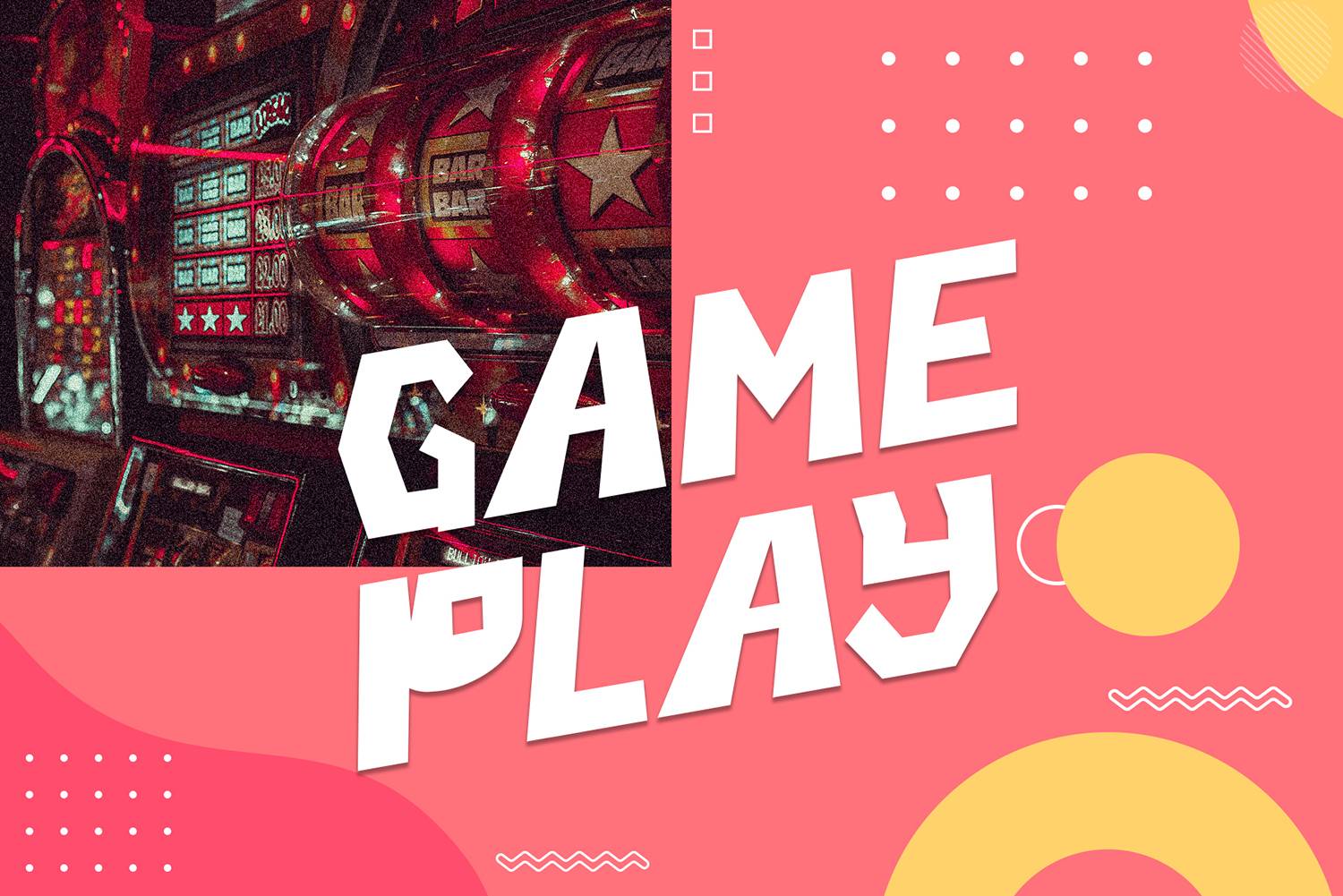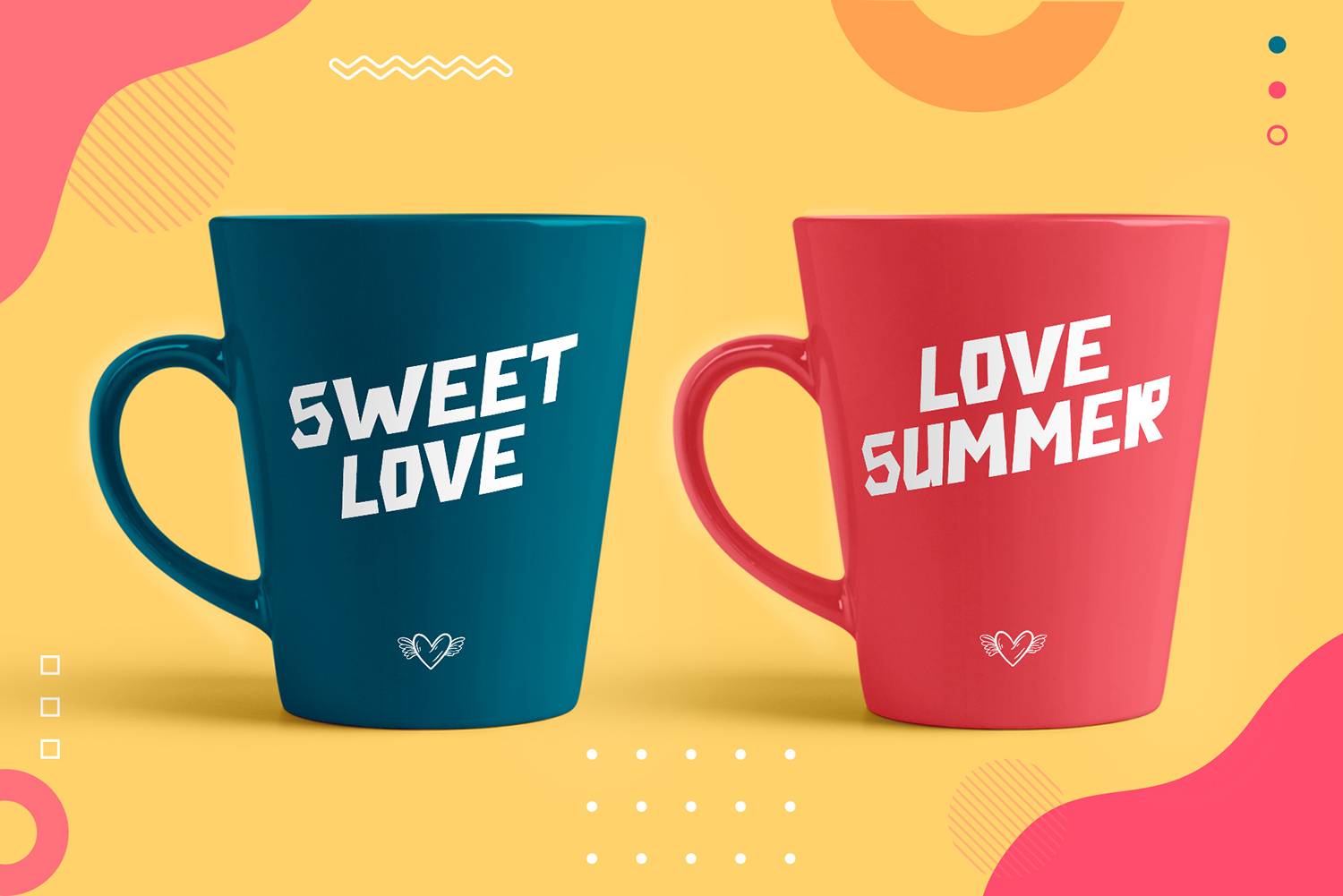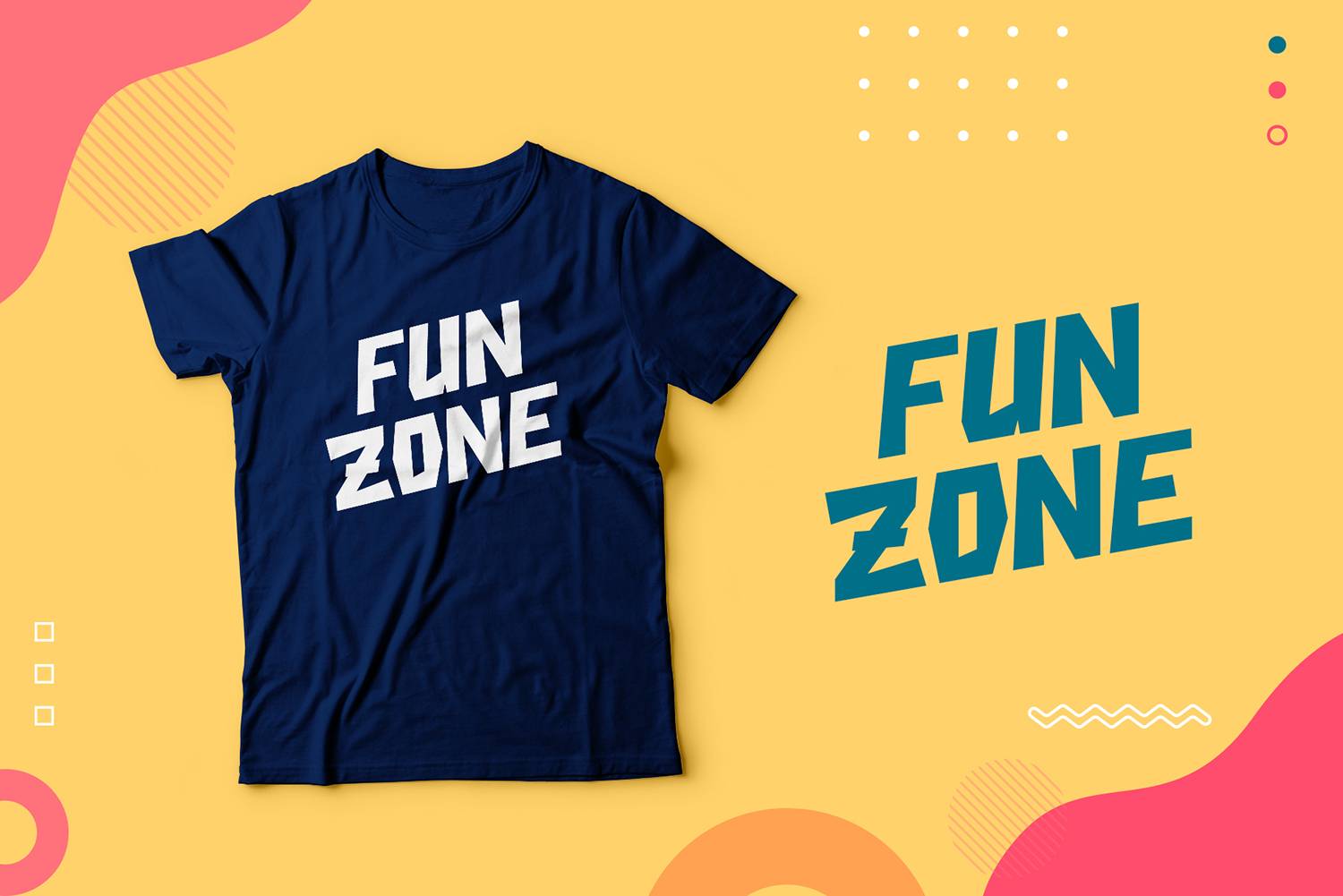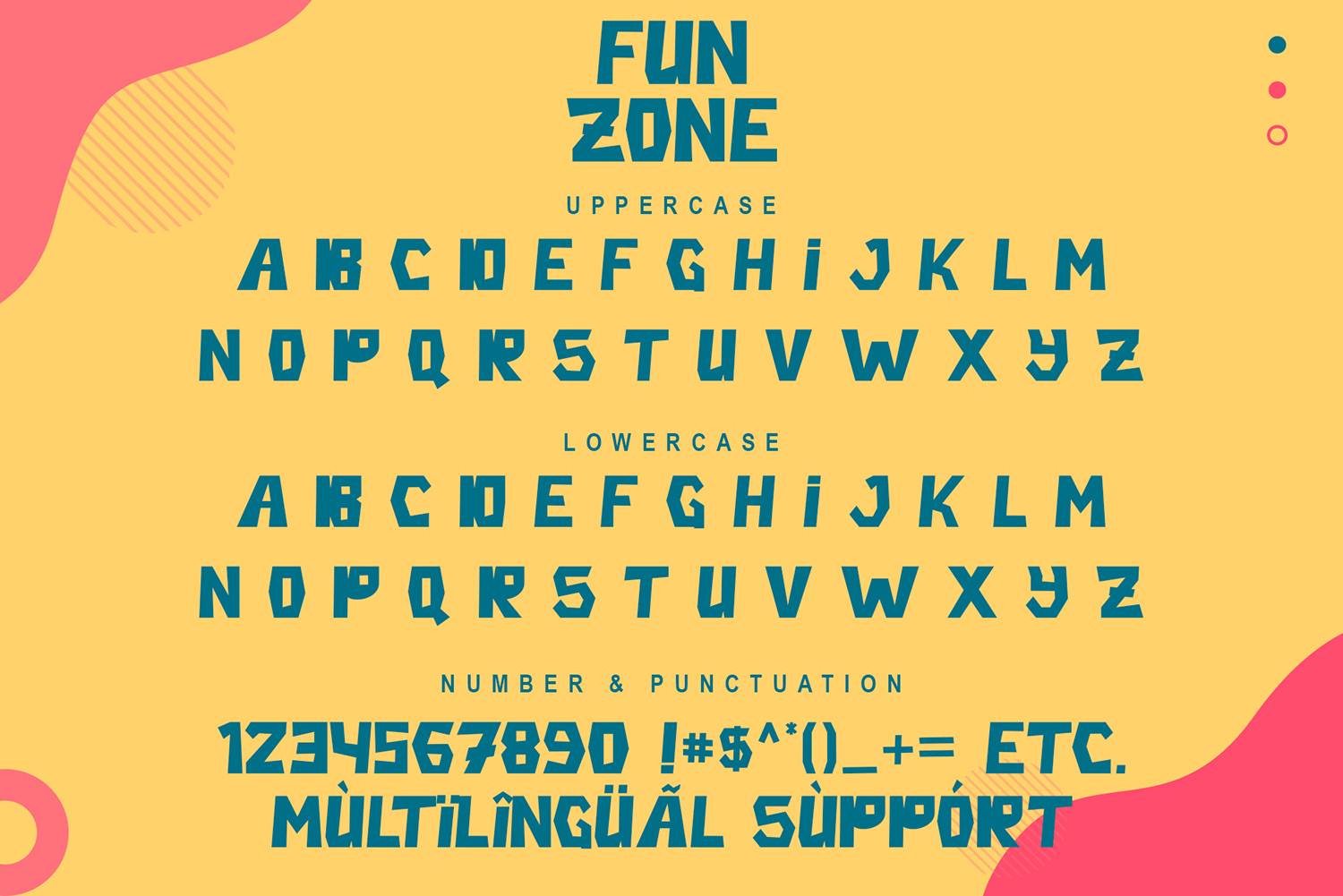
Fun Zone is a bold, playful sans serif font with strong angular shapes and an energetic, slightly irregular style that adds a quirky, fun personality. Its heavy weight and sharp edges make it ideal for attention-grabbing headlines, posters, and playful branding, especially for casual, youthful, or entertainment-focused projects. This font brings a lively, informal vibe while maintaining clear readability and impact.
Fun Zone Font